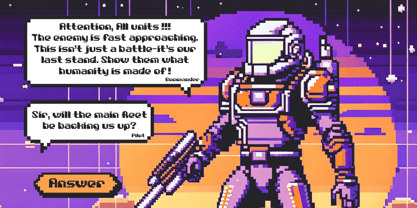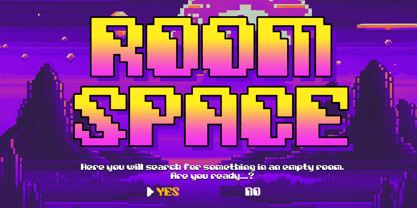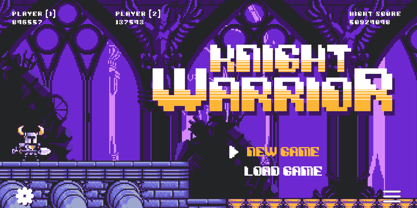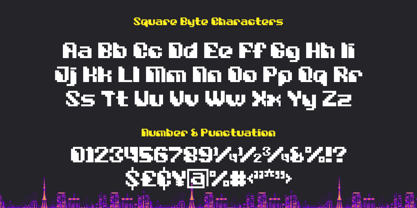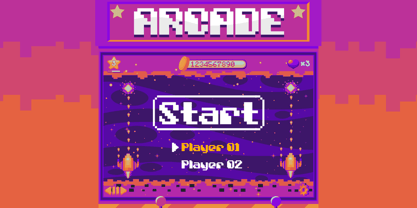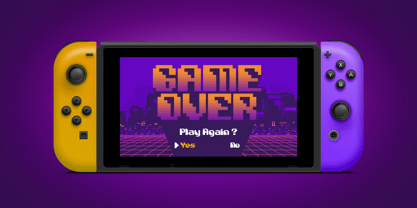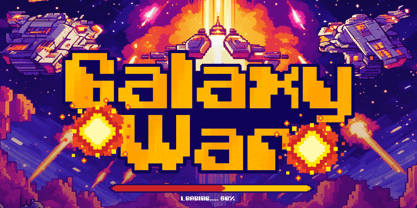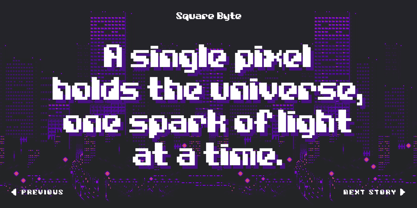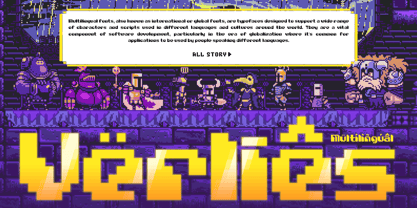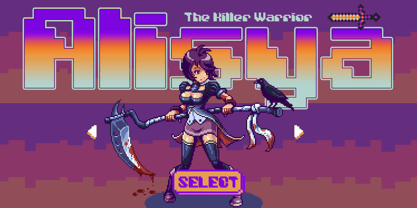
Square Byte
von RagamKata
Die Schriftfamilie Square Byte wurde von Yogiswhara Dio Prakoso Riadi entworfen und von RagamKata veröffentlicht. Square Byte enthält 1 Stile.
Square Byte - Modern Pixel Font
Step into a vibrant retro world with Square Byte, a modern pixel font inspired by the golden age of classic video games! With bold, blocky designs and a unique style, this font is perfect for all your creative needs.
🎮 Retro-style game titles
📺 Arcade-themed posters
👾 Creative projects with an 8-bit or 16-bit vibe
This font blends nostalgia with a modern twist, making your designs stand out from the crowd. Create unforgettable visual experiences with Square Byte